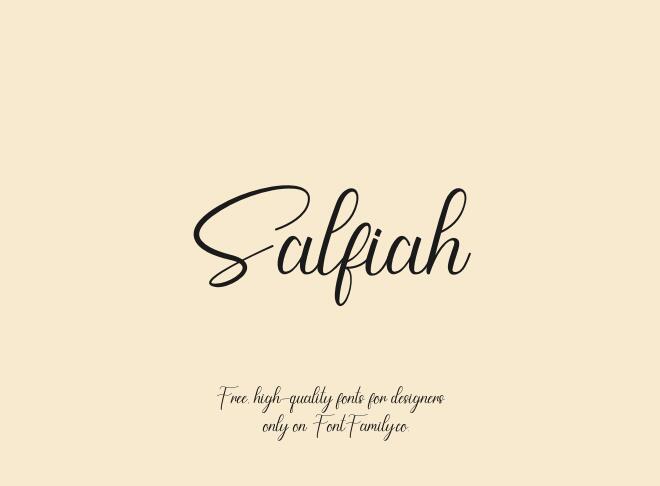
Salfiah Font
Salfiah Font is a beautifully crafted script typeface that exudes elegance and sophistication. Designed with a delicate touch by Salfiah Studio, this handwritten font is perfect for adding a personal and stylish flair to your designs. The font's fluid strokes and balanced proportions make it a great choice for logos, wedding invitations, or any design that requires a touch of elegance. Compared to other fonts, Salfiah Font stands out with its unique blend of classic and modern elements. Its decorative characters and subtle handwritten style make it versatile for both formal and informal contexts. With Salfiah Font, designers can elevate their artwork with a timeless and classic aesthetic that never goes out of style.